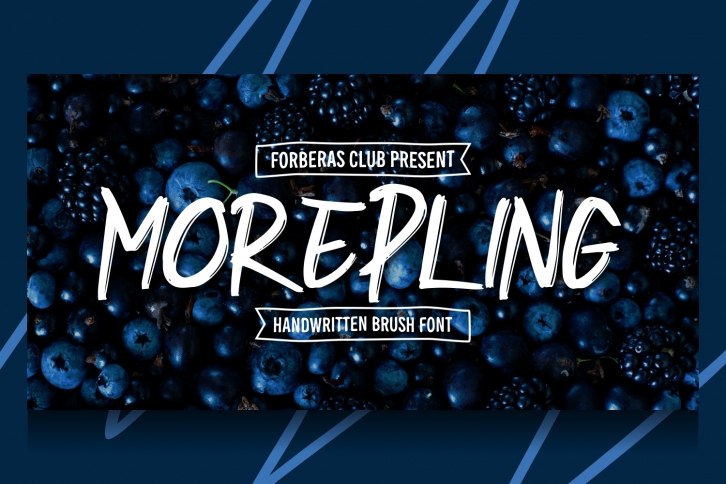
Morepling is a cool, relaxed and trendy handwritten font. This font is suitable for designs such as t-shirts, sportswear, logos, advertisements, clothing, and more.